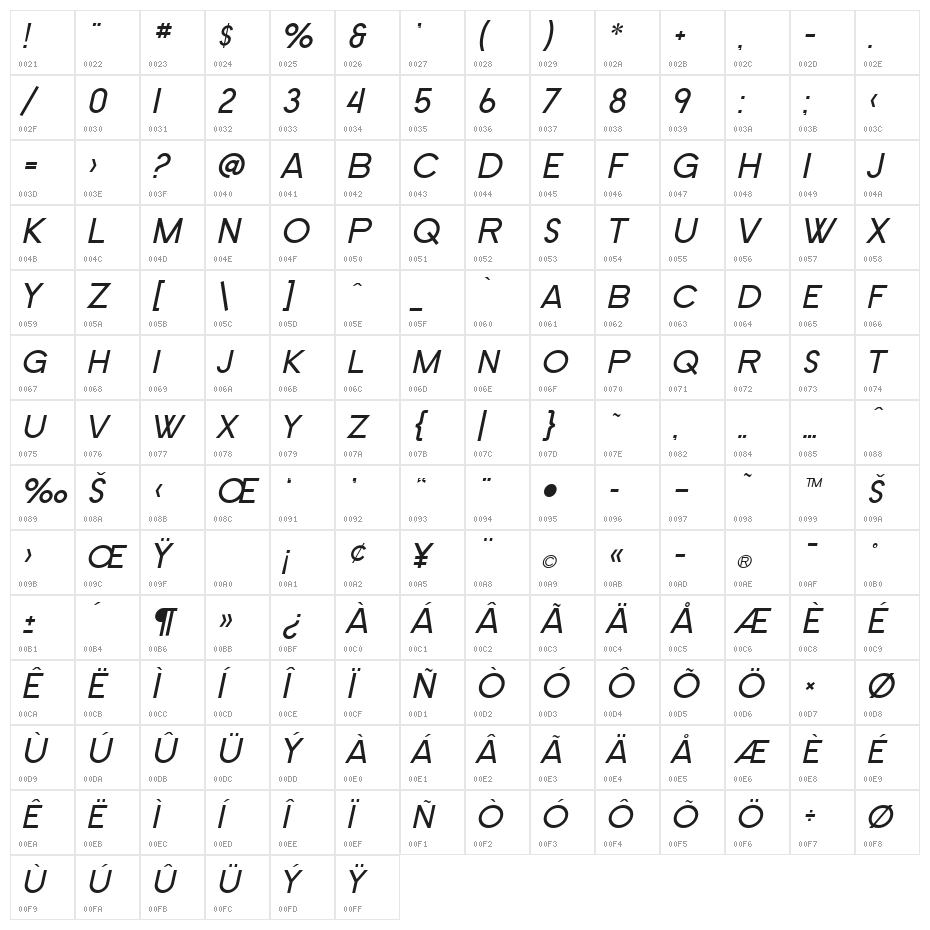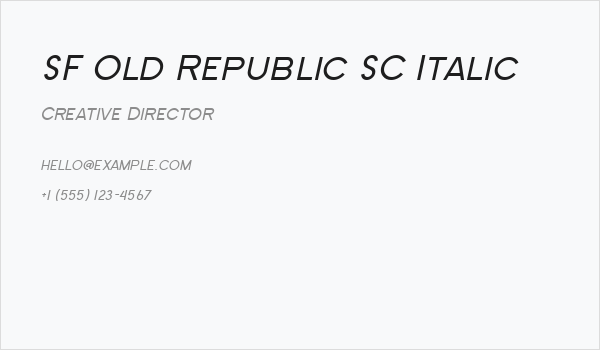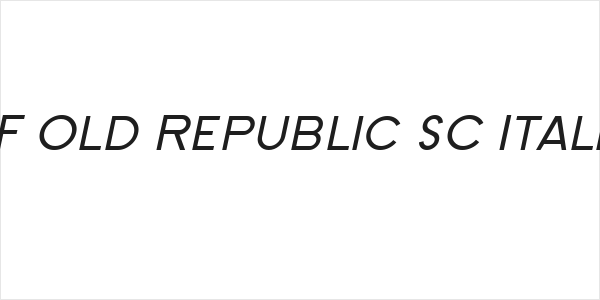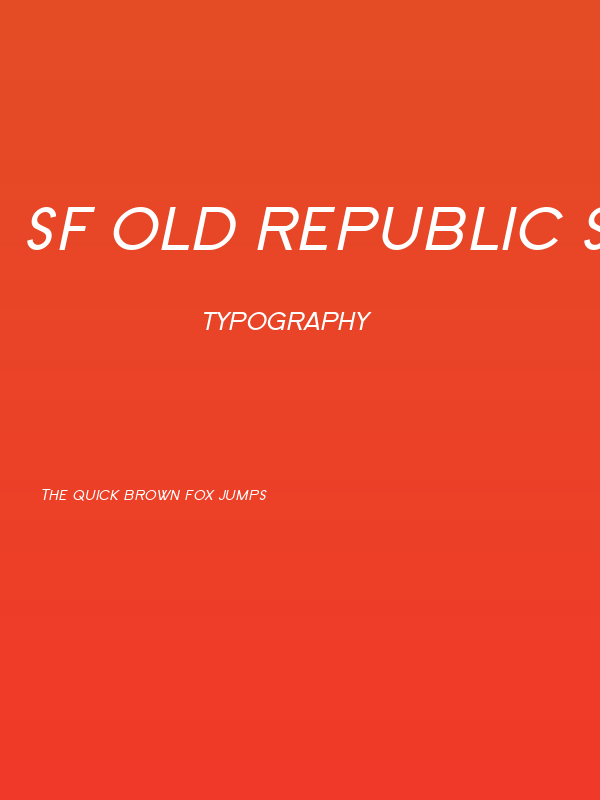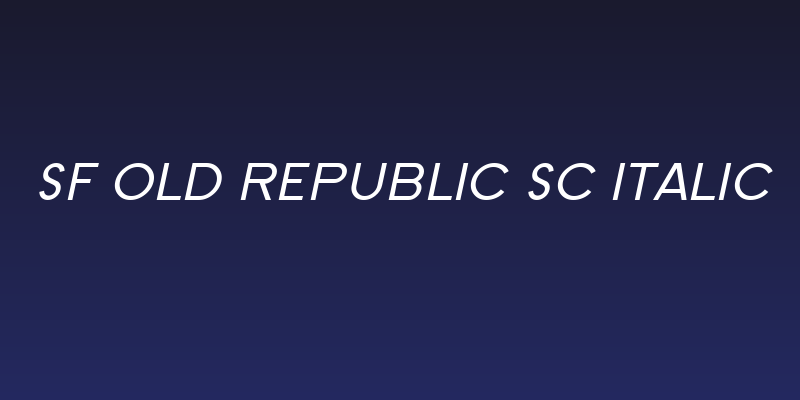
SF Old Republic SC Italic Font
SF Old Republic SC Italic Description
This font features a sleek, italicized style with a modern and dynamic appearance. The characters are slightly slanted, giving a sense of motion and elegance. The uppercase and lowercase letters maintain a consistent design, with smooth curves and sharp edges that enhance readability. The numerals are bold and clear, making them stand out effectively. Special characters are well-integrated, maintaining the font's cohesive look. Overall, this font exudes a contemporary feel, suitable for various design applications.
| Proposed Projects | Ideal for branding, advertising, and editorial design projects where a modern and stylish look is desired. |